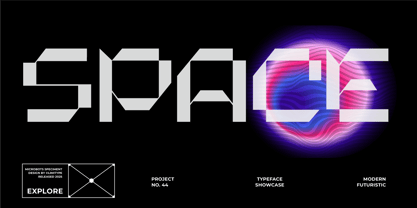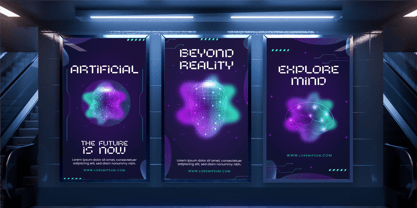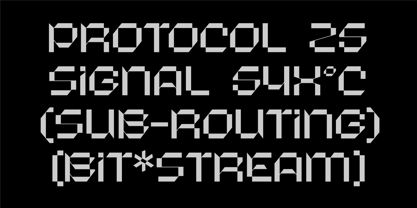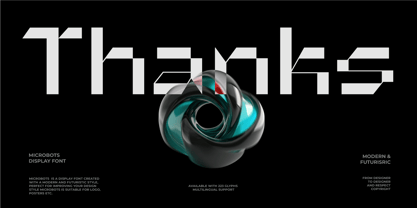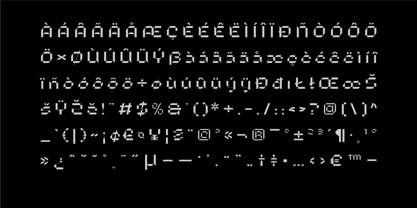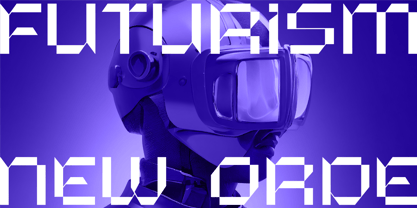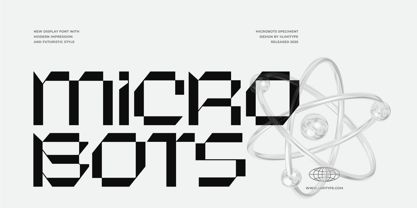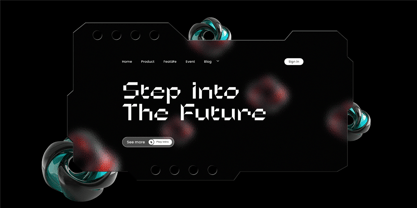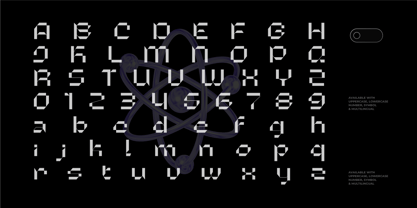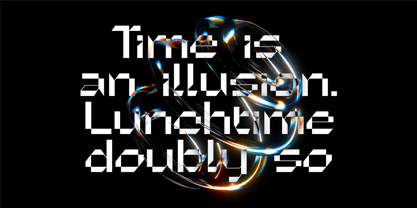
Microbots
by limitype
The Microbots Font Family was designed by Muhammad Muammar, Furqan Sudirman and published by limitype. Microbots contains 1 styles.
Microbots is a futuristic pixel style font with sharp, angular edges that delivers a strong and unique visual identity. Perfect for titles, posters, logos, and various design projects that aim to appear bold and modern.